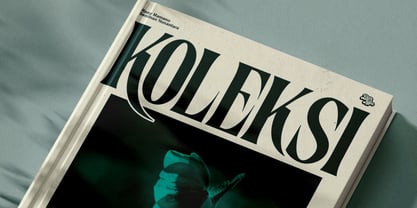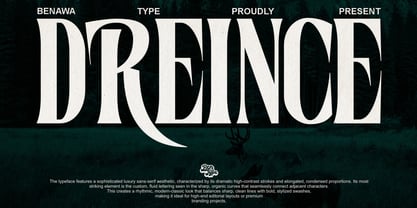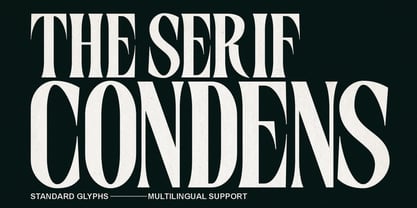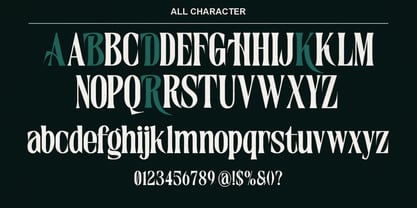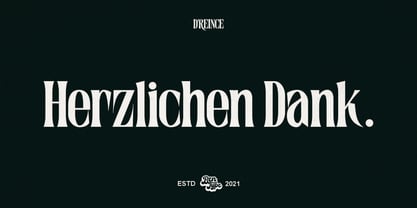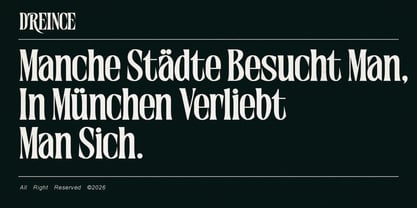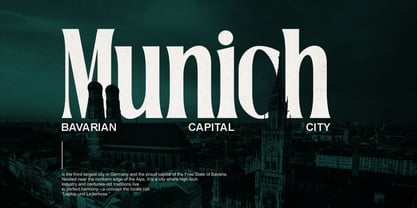
Dreince
by Bentype
The Dreince Font Family was designed by Muhammad Farkhan and published by Bentype. Dreince contains 1 styles. More about this family
Dreince - Classic Condensed Serif is a striking high-contrast display serif that masterfully blends classical elegance with a sharp, contemporary edge. It features a dramatic interplay between thick, bold stems and razor-thin hairlines, giving it a luxurious and sophisticated presence. It captures a retro-classic aesthetic while maintaining a clean, digital precision, making it highly suitable for luxury logos, poster designs, and artistic headlines. The letterforms are tall and narrow, which creates a rhythmic, vertical emphasis perfect for high-fashion editorial or premium branding.
Designers: Muhammad Farkhan
Foundry: Bentype